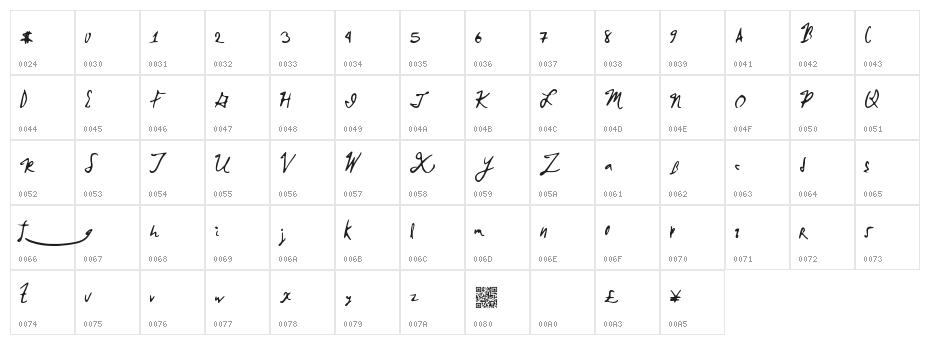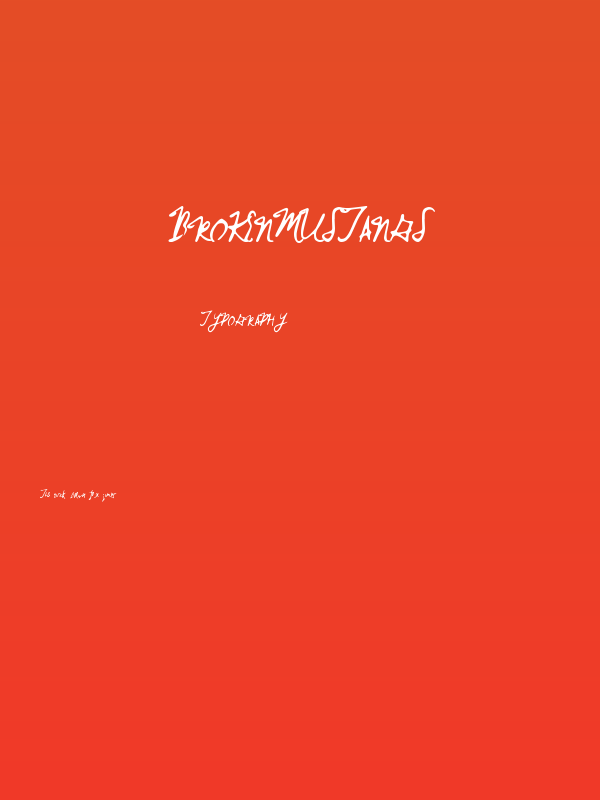
BrokenMustangs Font
BrokenMustangs Description
This font features a dynamic and expressive style, characterized by its fluid, handwritten appearance. The uppercase letters exhibit a bold, sweeping motion with varying stroke widths, giving them a lively and energetic feel. The lowercase letters maintain this fluidity, with some characters extending below the baseline, adding to the font's playful nature. Numbers are consistent with the overall style, maintaining the same energetic strokes. The special characters are creatively integrated, matching the font's unique aesthetic. This font's design is ideal for projects that require a personal touch or an artistic flair.
| Use Case | Logos, Headlines, Artistic projects |
| Proposed Projects | Ideal for greeting cards, artistic posters, personal branding, and creative invitations. |